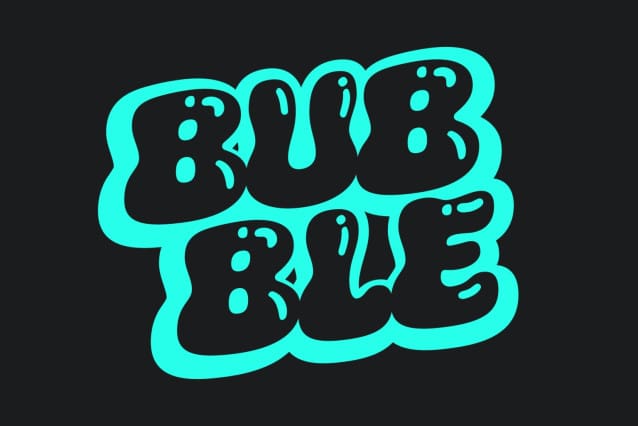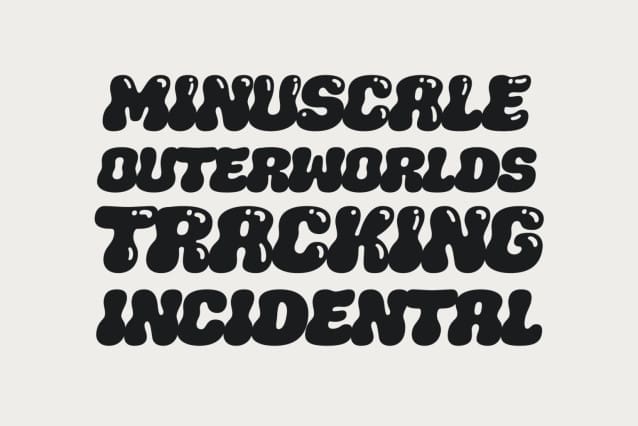
Hopalope Display Font
Hopalope Display Font, soft groovy display font with a wavy and bubbly charm. Its bold and fun character makes it a perfect fit for a wide range of creative purposes, including display designs, large-sized text, headers, logos, websites, brand identities, product packaging, and various layout designs. Hopalope’s unique style adds a playful touch to your graphic design projects, making it an excellent choice for those seeking a soft and groovy aesthetic.